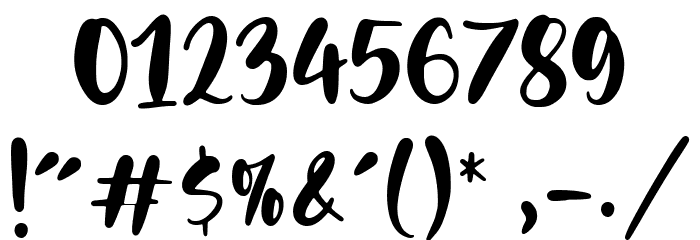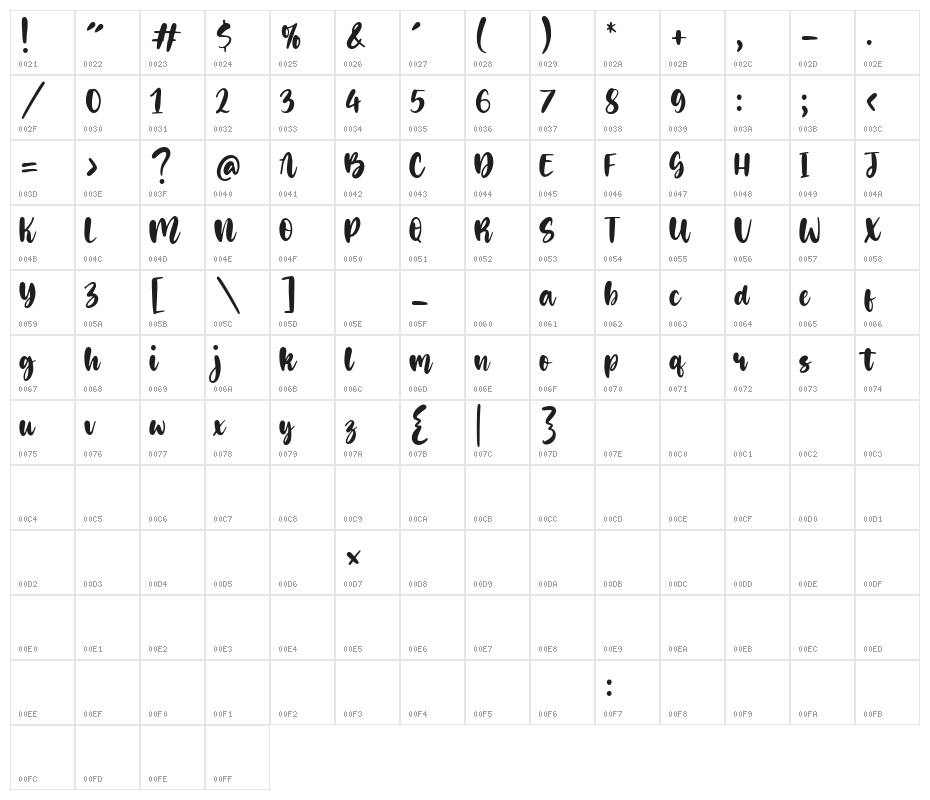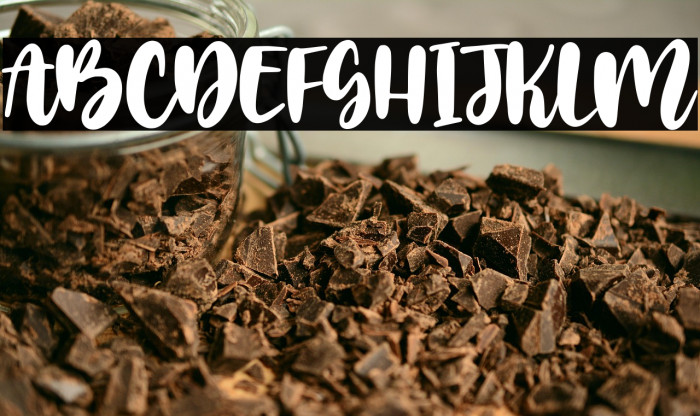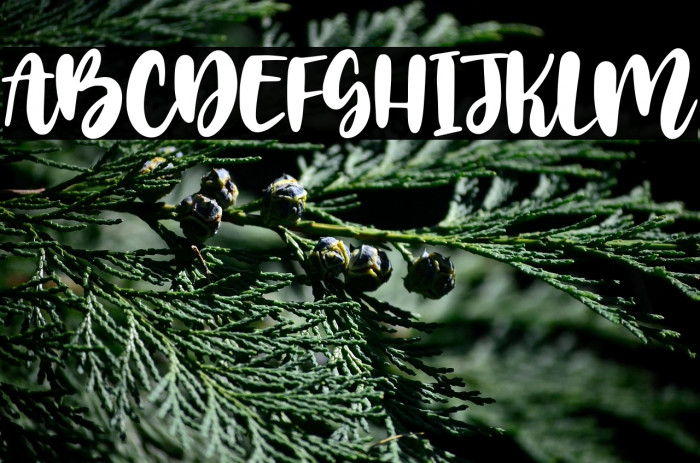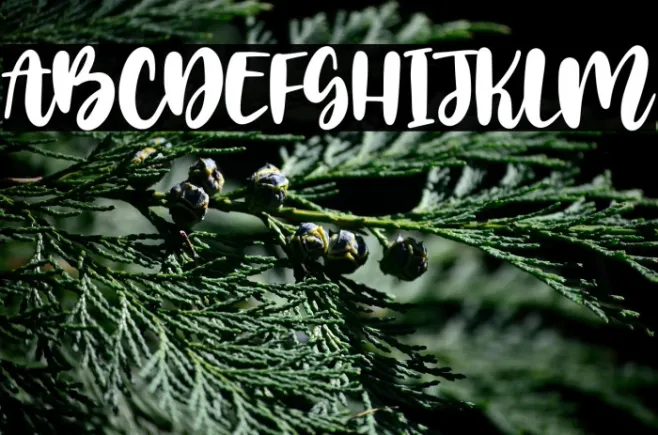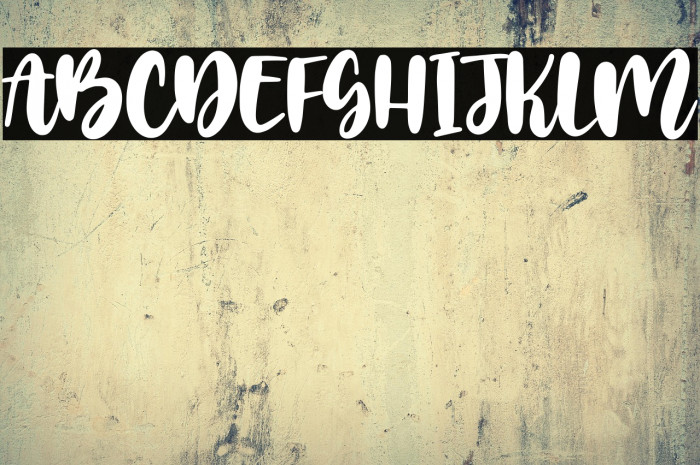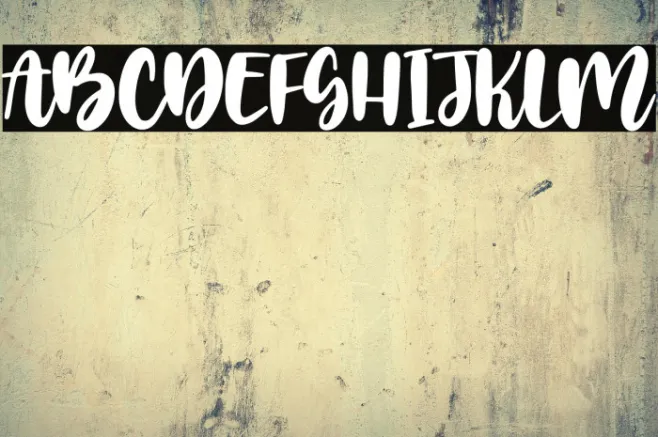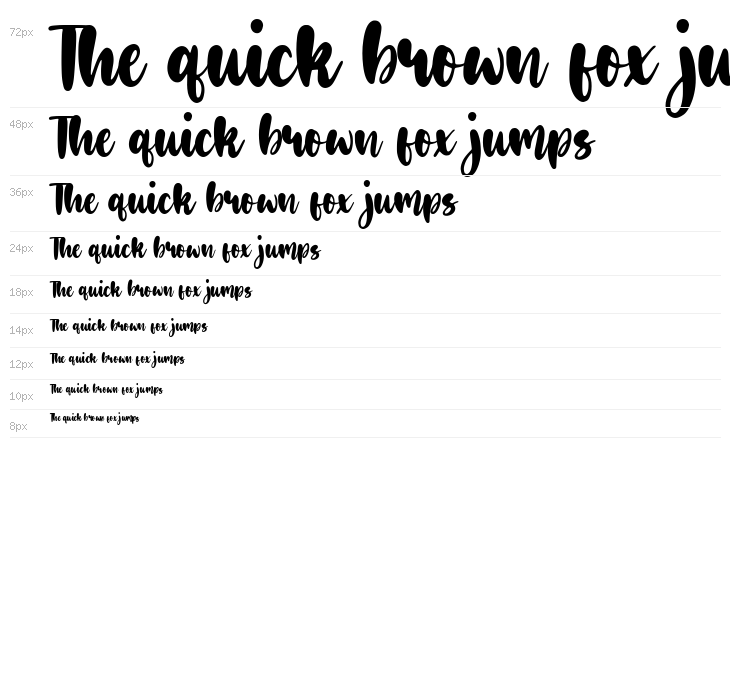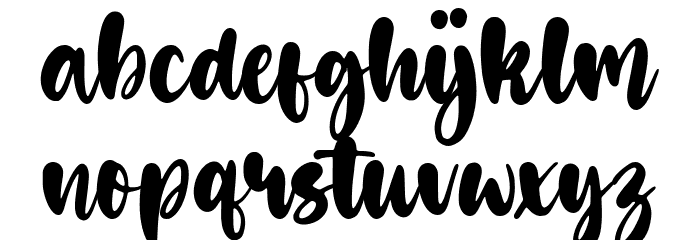
Golden Dates Font
Golden Dates Description
This font exhibits a bold and expressive handwritten style, characterized by its fluid and dynamic strokes. The letters are crafted with a sense of movement and energy, creating a lively and engaging appearance. The uppercase and lowercase letters maintain a consistent style, with rounded edges and a slight slant that adds to the casual and friendly feel. The numerals and special characters are designed to match the overall aesthetic, ensuring a cohesive look across all elements. The font's thick strokes and high contrast make it highly legible, even at smaller sizes, while the playful curves and loops add a touch of whimsy and charm.